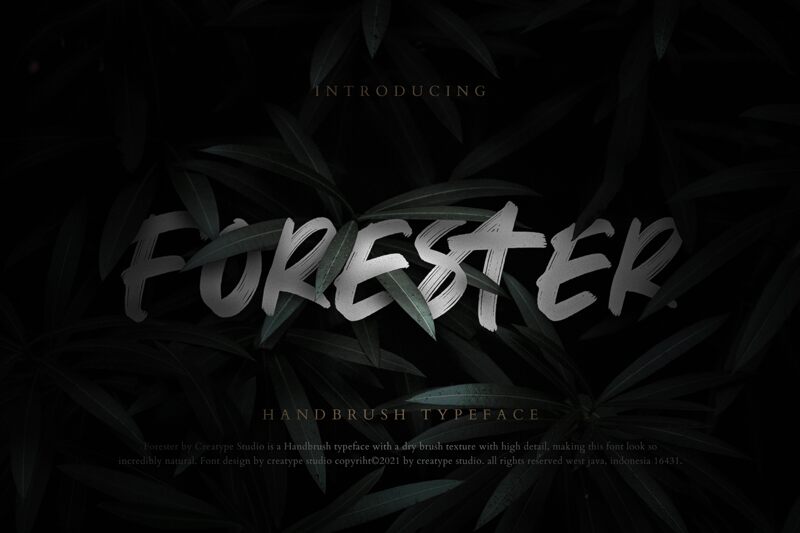
Forester Regular
Forester font by Creatype Studio is a graceful brush script font that pairs charming lines with expressive loops in elegant letters. Rough letter edges provide an energetic feel in the popular casual style. Each letter flows smoothly connecting all-over artistic flair and a contemporary vibe.
Use it for packaging, branding, or personalizing letters addressed to loved ones. The free font also works great for posters, flyers, hoardings, online advertisements, short promo videos as well as book covers and titles. Using “Forester” to create your own signature style is another idea to consider!